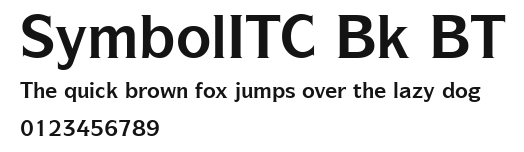
SymbolITC Bk BT Preview
• Font Name: SymbolITC Bk BT
• Font ID: ITC Symbol Bold, Copperplate 721
• Full Font Name: Symbol ITC Bold BT
• PostScript Name: SymbolITCbyBT-Bold
About SymbolITC Bk BT.ttf
SymbolITC Bk BT.ttf is a modern, elegant sans-serif font designed for ultimate readability and visual harmony. Perfect for branding, headlines, web design, and print materials.